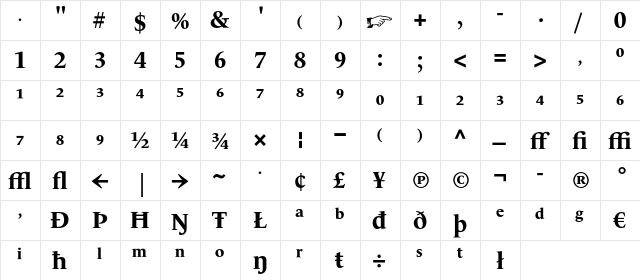
LeMonde Livre Expert Bold
Design Context for LeMonde Livre Expert Typeface
LeMonde Livre Expert offers clean, dependable letterforms without strong stylistic allegiance, making it a practical choice for designers who need flexibility. Its bold stroke weight gives it real presence on the page.